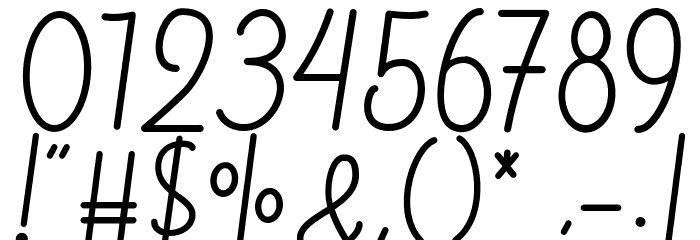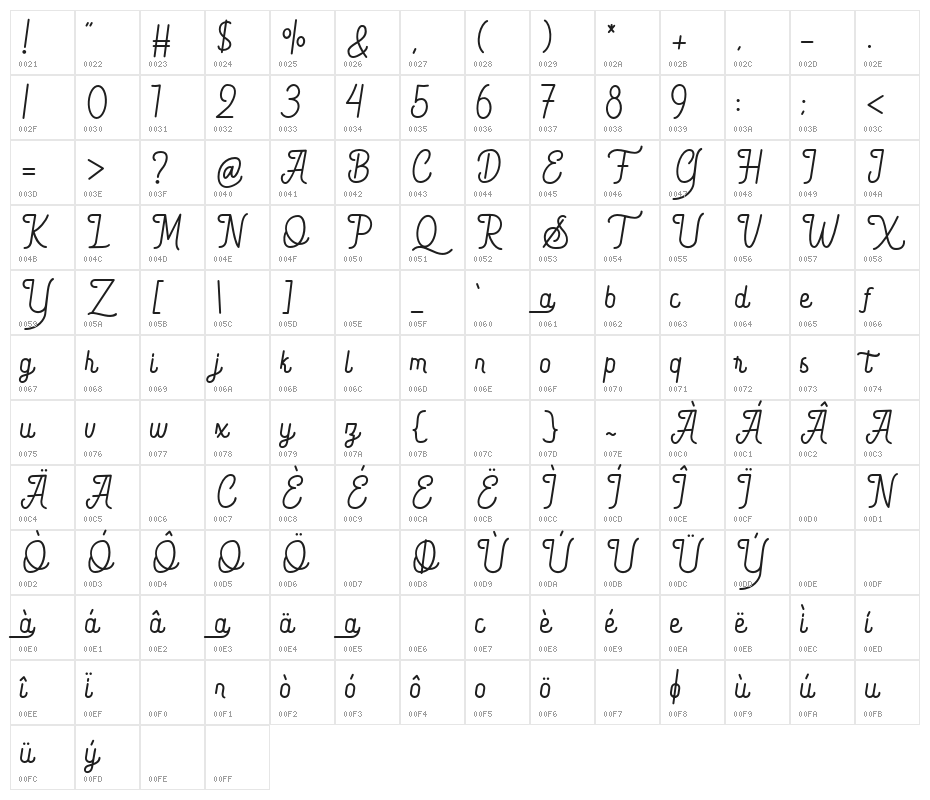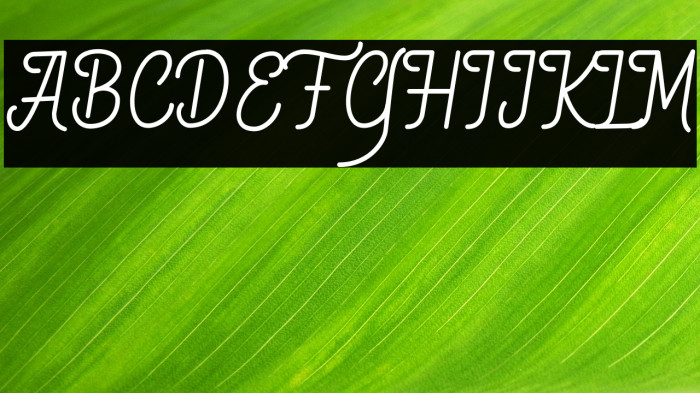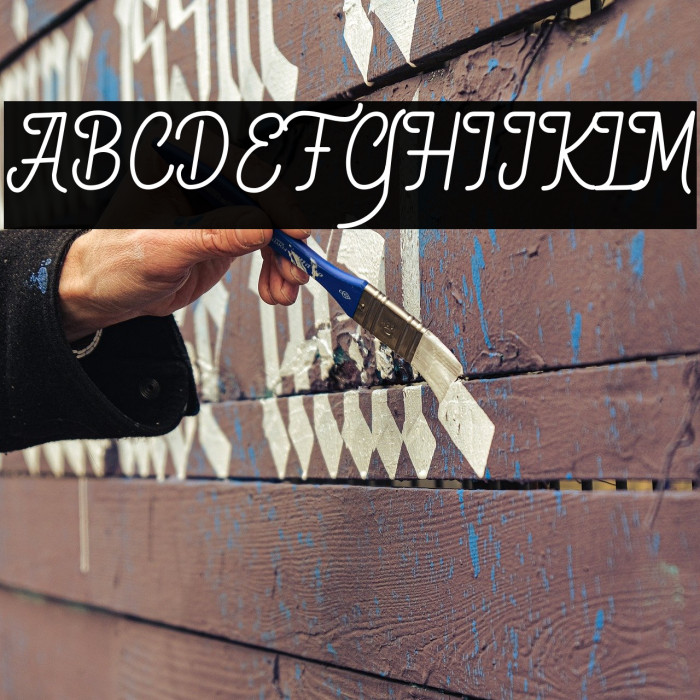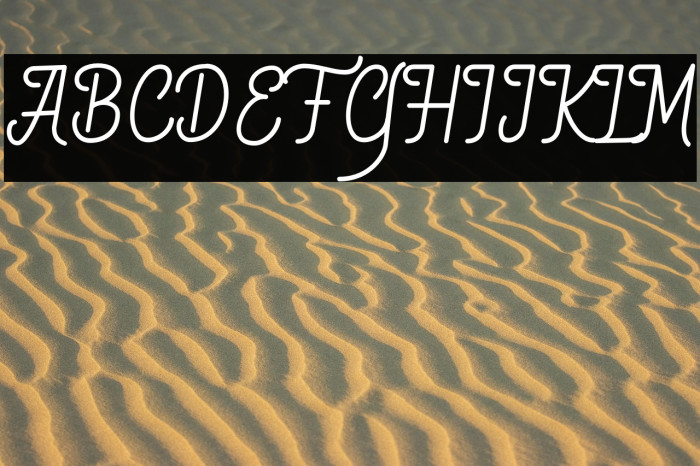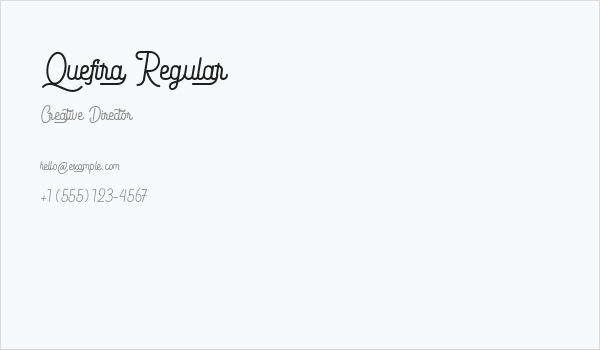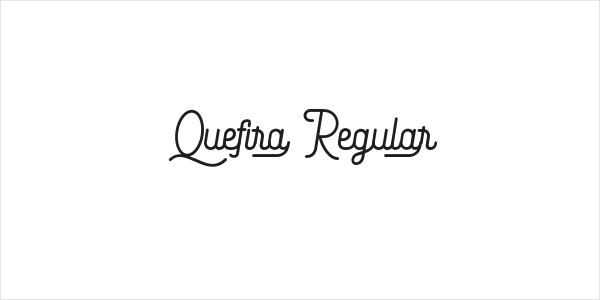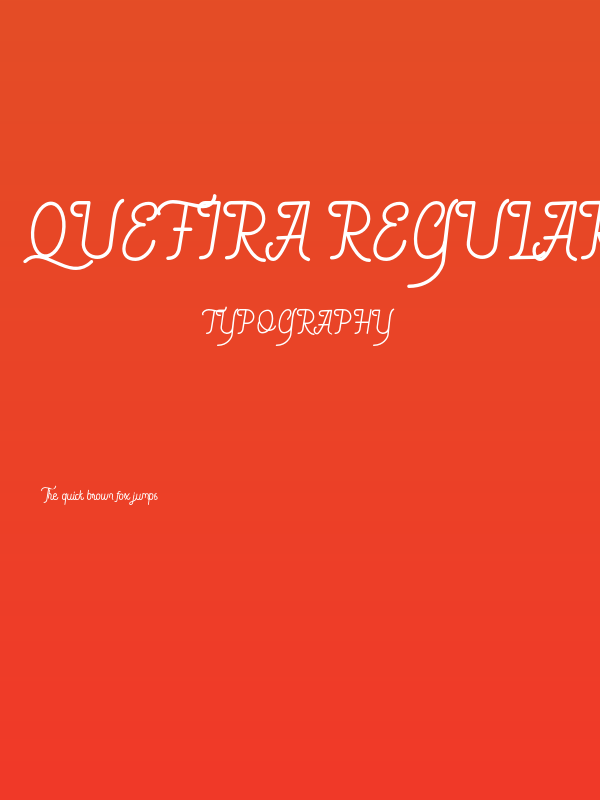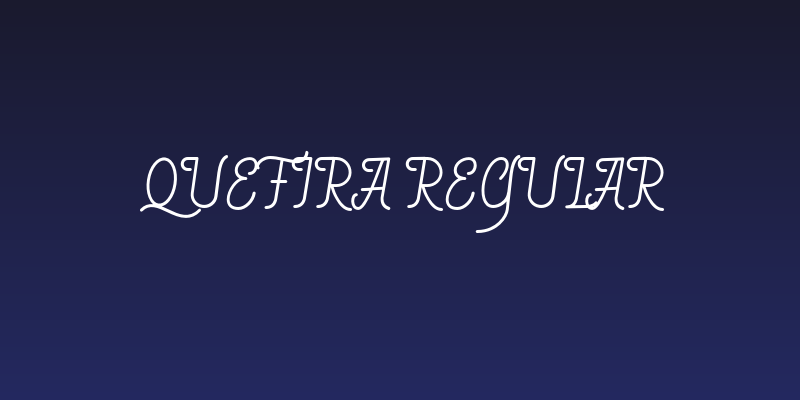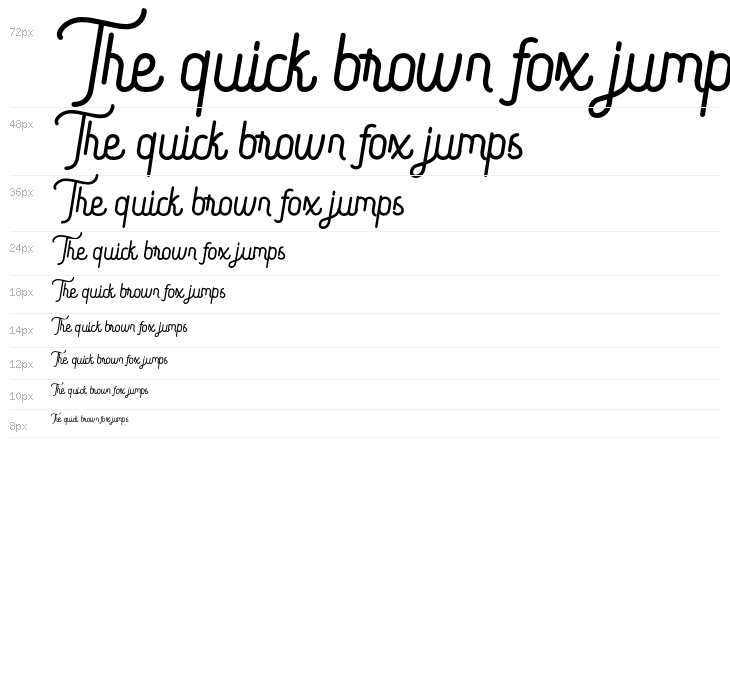
Quefira Regular Font
Quefira Regular Description
This font exhibits a stylish and flowing script design, characterized by its elegant and cursive letterforms. The uppercase letters are particularly ornate, with sweeping curves and loops that give a sense of movement and grace. The lowercase letters maintain a cohesive style, with a slightly more restrained approach, yet still retaining the overall fluidity. The numerals are consistent with the script style, featuring curved lines and a playful yet sophisticated appearance. Special characters are designed to match the overall aesthetic, ensuring a harmonious look across all elements. This font's design is both modern and timeless, making it suitable for a variety of creative applications.
| Overall Style | Elegant and Modern |
| Proposed Projects | Ideal for wedding invitations, greeting cards, branding projects, and elegant packaging designs. |